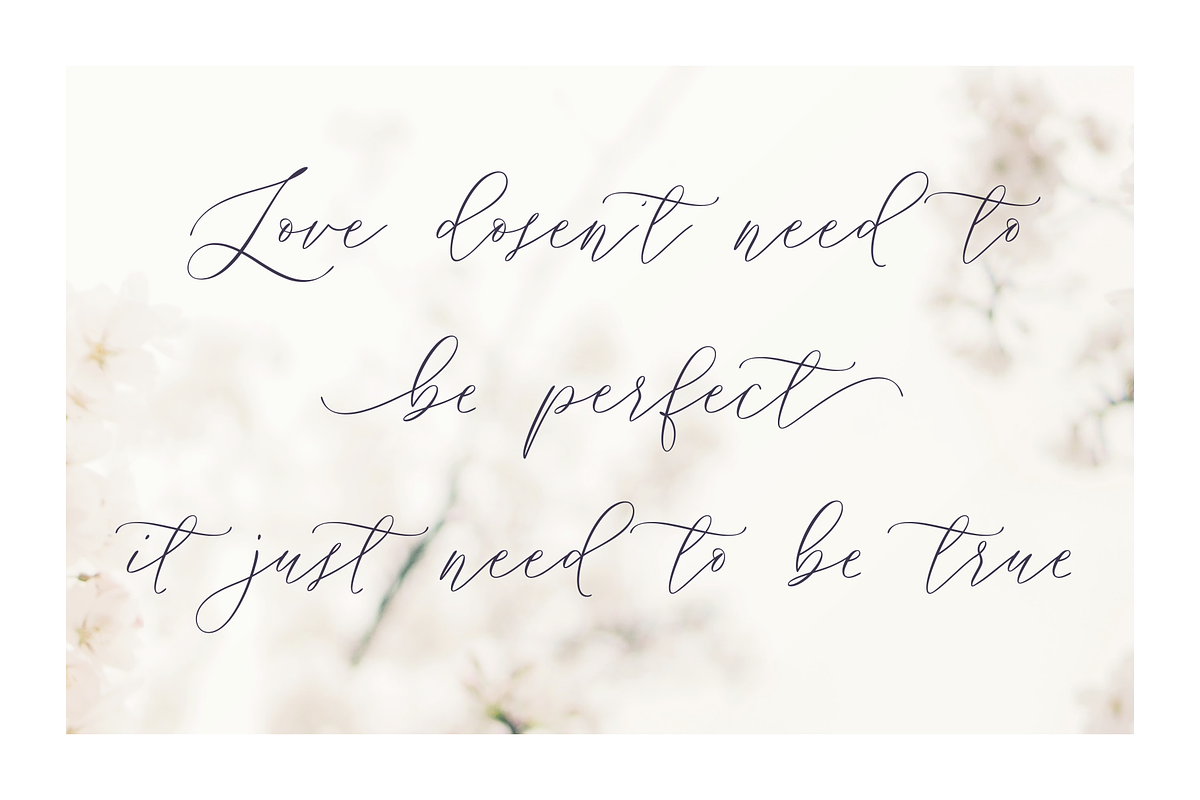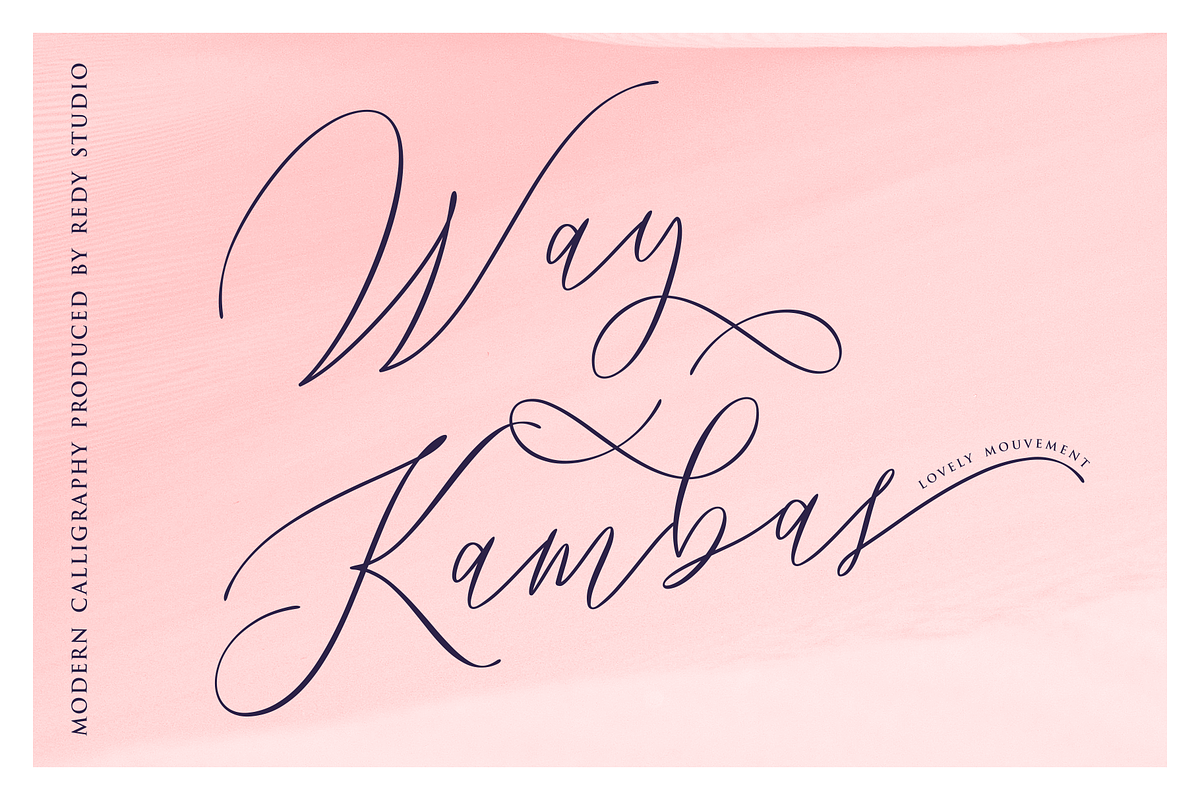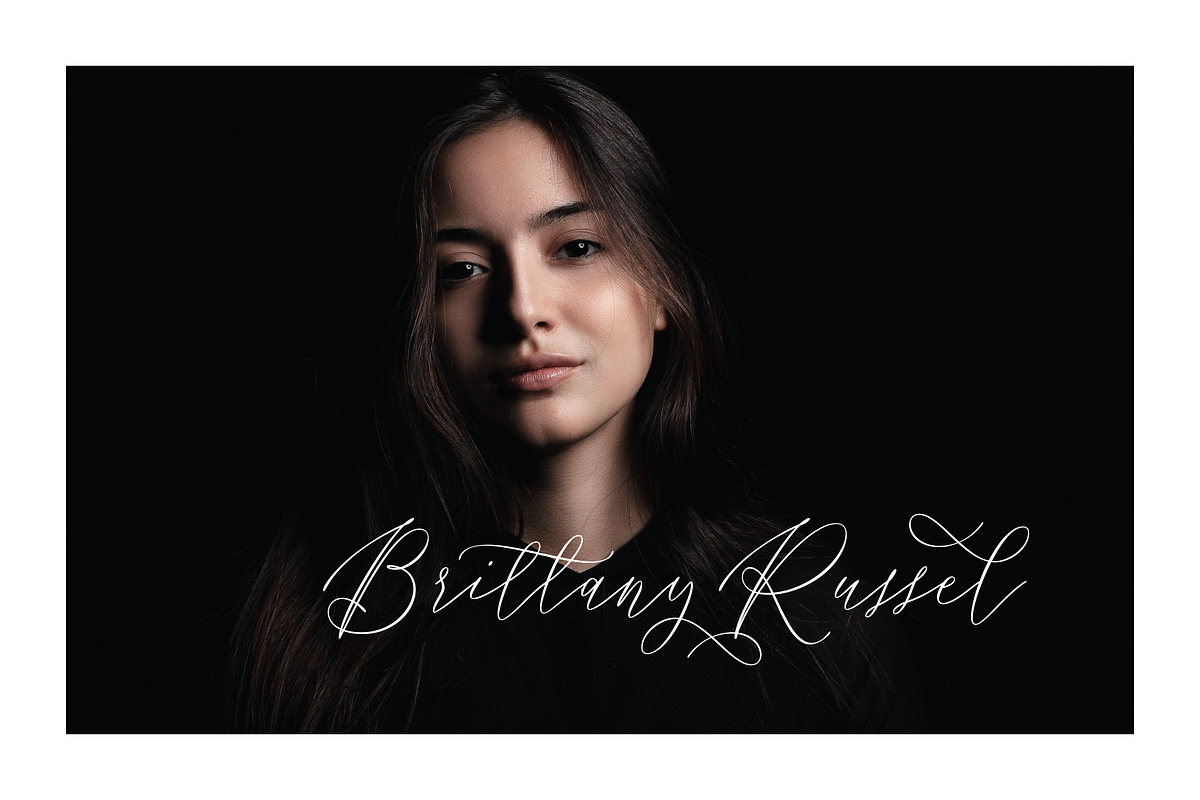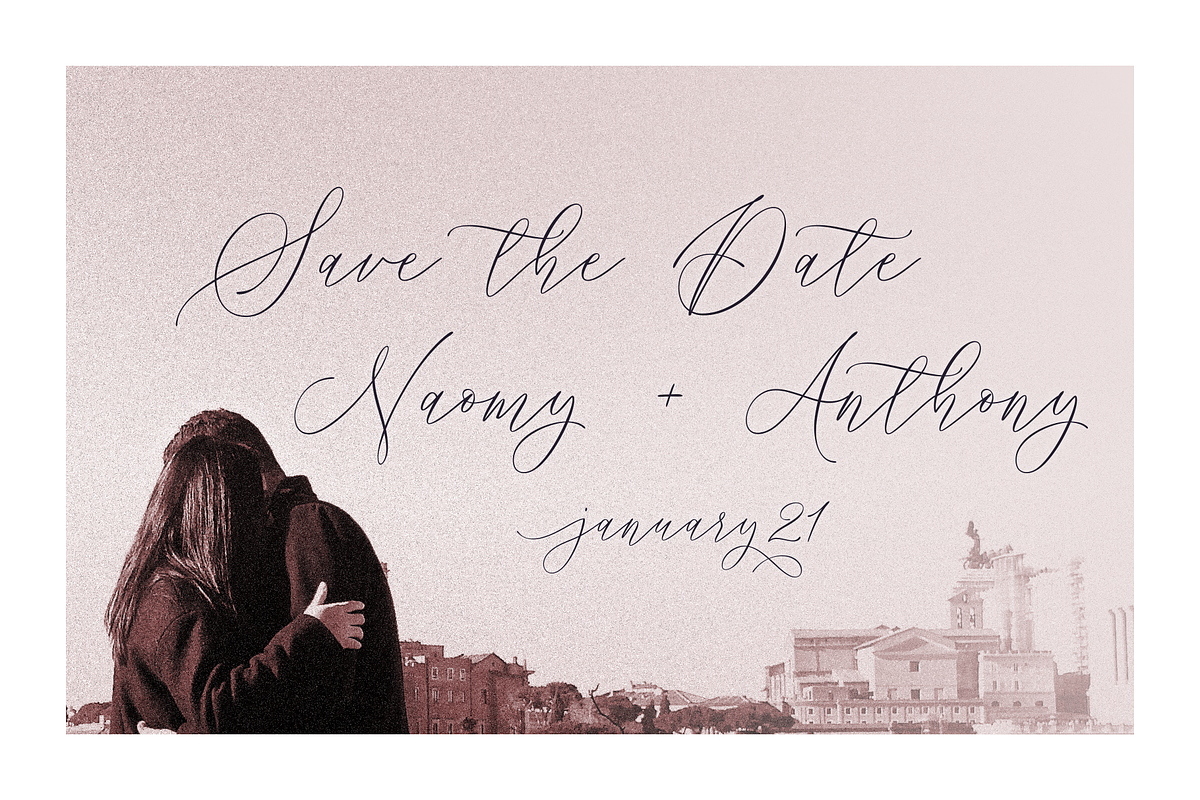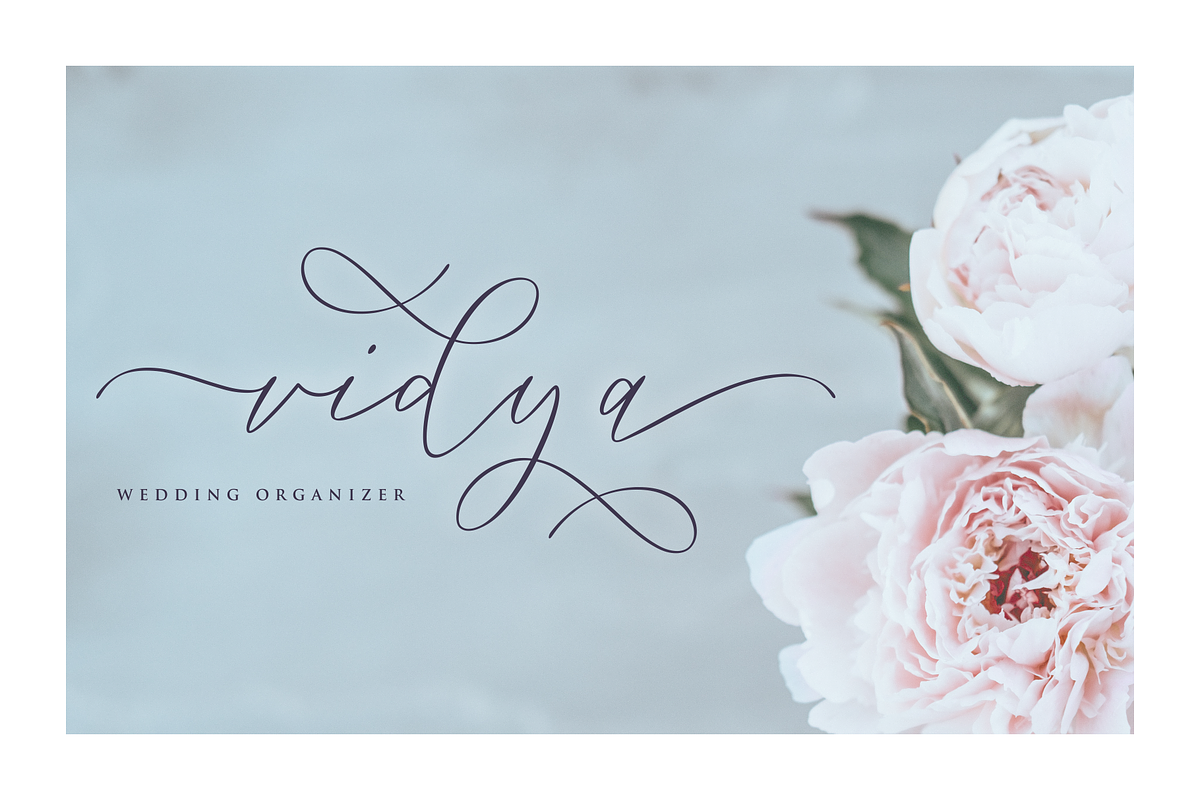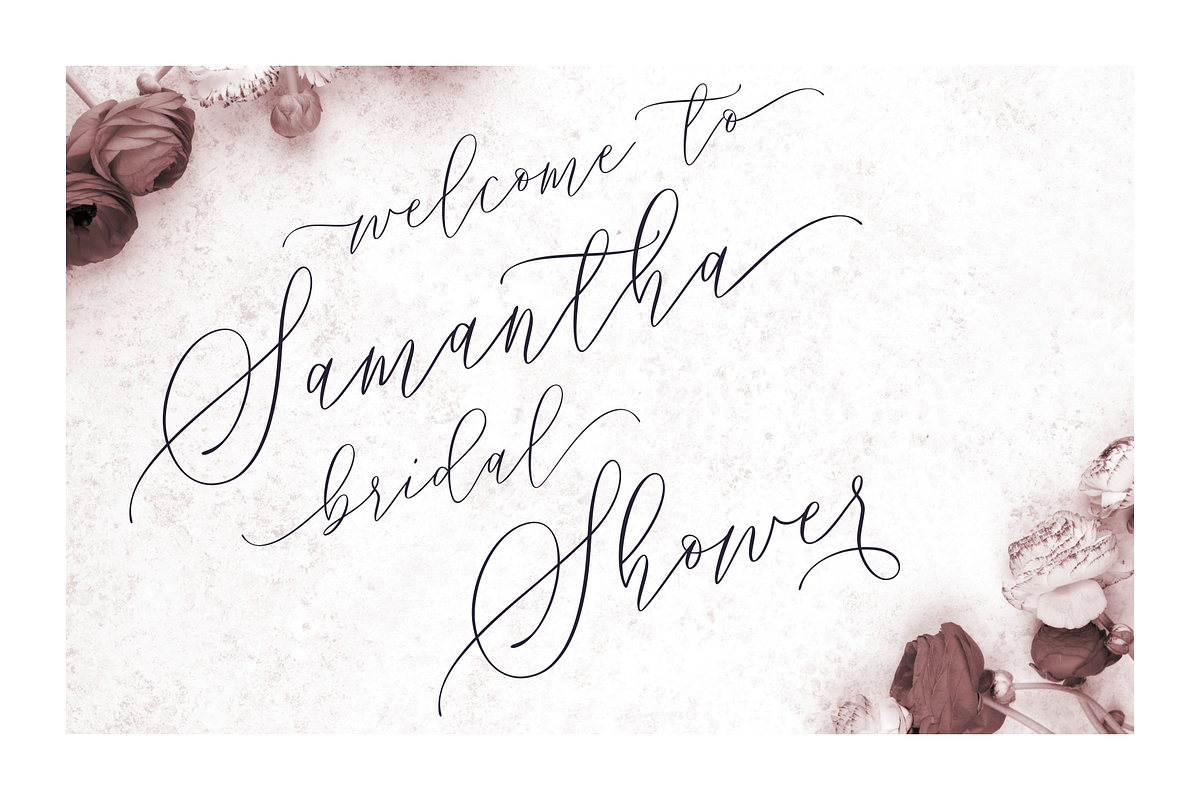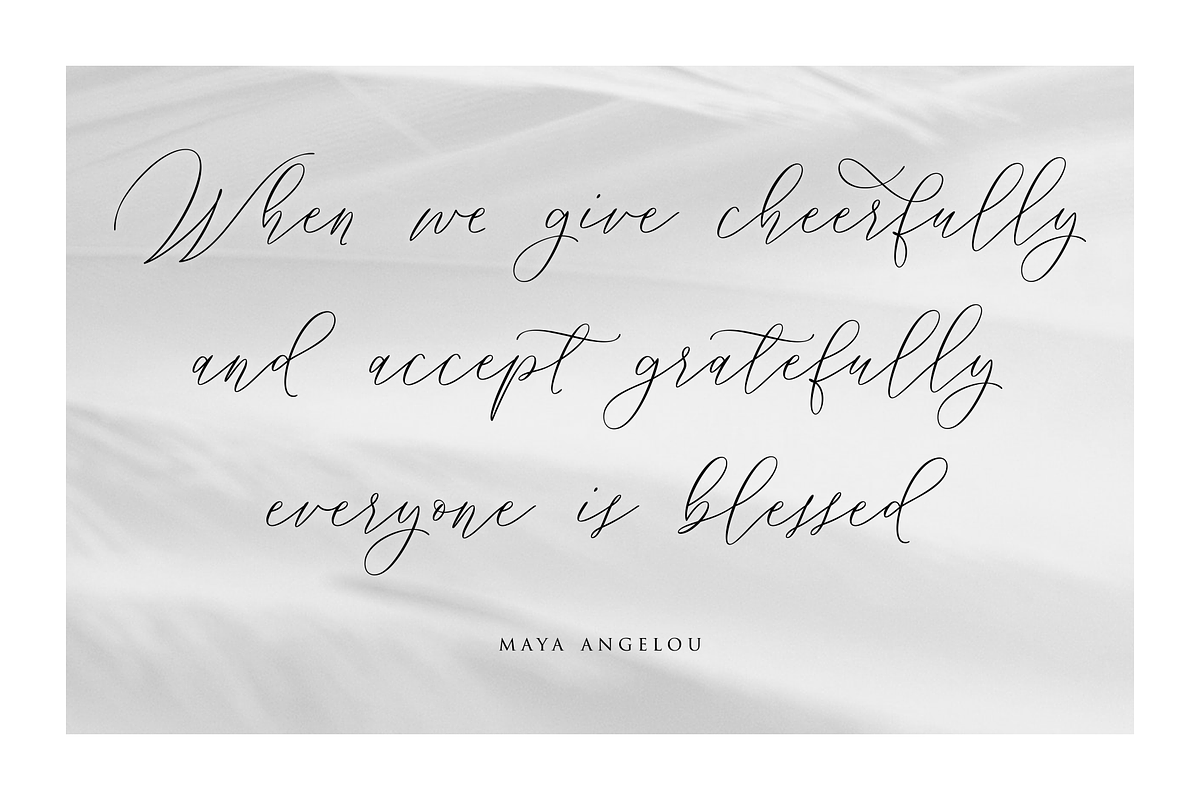
Way Kambas - Modern Calligraphy Font
Hello, I’m Way Kambas. I’m a modern calligraphy font with thin strokes and beautiful movements. Way Kambas is natural, stylish, and a perfect combination of traditional calligraphy and modern design. Combining thin strokes with beautiful movement, this font is built to bring any design project to life. You can use me for every design project as well (especially for wedding invitations, quote, greeting cards, and any romantic/love project).
A full set of upper & lowercase characters
Numbers & punctuation
Lowercase beginning swashes
Lowercase ending swashes
Some lowercase alternates